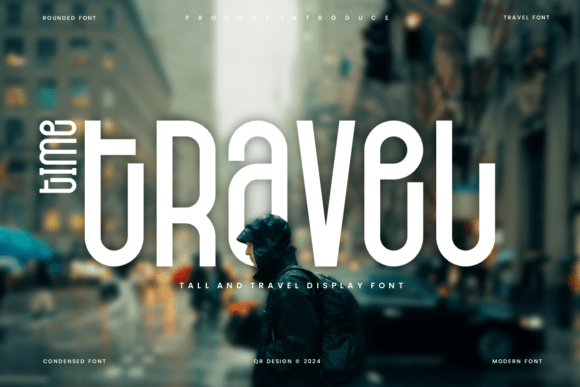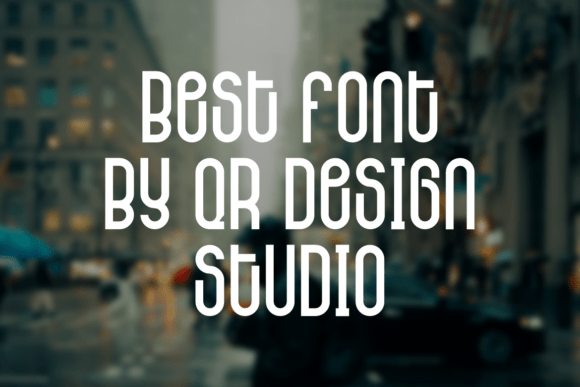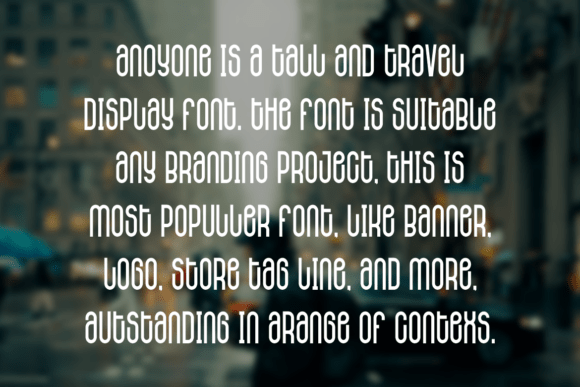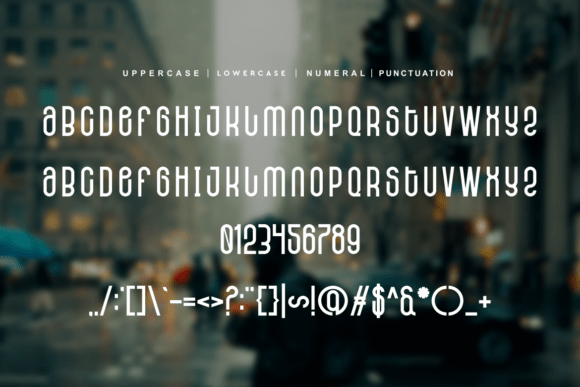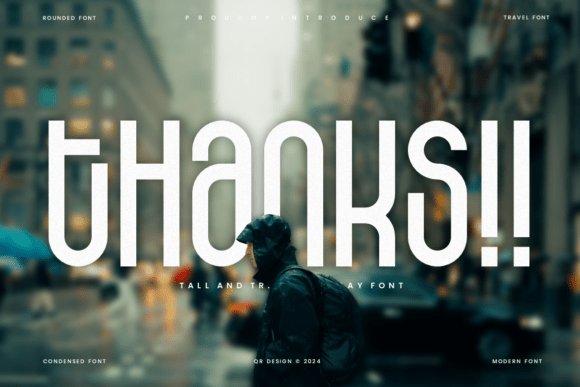
Unlocking Creativity with Anoyone Font
Have you ever been stuck on a design project, scrolling through font options, and suddenly, something clicks? The perfect font appears, and your vision takes shape. For many designers, this moment is a game-changer. It’s the difference between a good design and an exceptional one. And that’s exactly what Anoyone – Tall & Travel Display Font promises to deliver.
This bold and authentic display font is designed to elevate any branding project, from logos to sports-related designs. Its versatility makes it an outstanding choice for a wide range of contexts. Whether you’re working on a new logo, a sports team’s identity, or a marketing campaign, Anoyone Font is an excellent addition to your design toolkit.
As a designer, you understand the importance of a well-chosen font in bringing your vision to life. Anoyone Font offers the perfect blend of style and functionality, making it a valuable asset for any creative project.
Anoyone Font Key Features
- Font Family: Anoyone Font comes in a single family with multiple weights and styles.
- Character Count: The font contains over 1,000 glyphs, including standard Latin characters, punctuation, and special characters.
- Unique Characteristics: Anoyone Font features a unique blend of modern and vintage elements, with a distinctive flair that sets it apart from other fonts.
Review of “Anoyone Font”
Overall, I was quite excited to try out the “Anoyone Font”, but it didn’t quite live up to my expectations. ✨ Here are a few things that worked well:
- Unique and quirky design that’s sure to stand out in certain contexts.
- Well-suited for titles and headings where a bold, attention-grabbing font is needed.
- Comes in a variety of weights and styles to suit different design needs.
However, I did encounter a few limitations that held me back from fully embracing this font: ⚠️
- Some characters, particularly punctuation marks, may appear slightly irregular or inconsistent.
- The font can be quite difficult to read at smaller font sizes, making it less suitable for body text.
- Lack of language support, which may limit its use for multilingual designs.
Overall, I’d say that the “Anoyone Font” is a fun and creative option, but it’s not without its flaws. If you’re looking for a bold, attention-grabbing font for specific design elements, it might be worth considering. However, for more extensive use or complex designs, you may want to look elsewhere.
Tips for Getting the Most Out of Anyone Font
Use Anyone Font for designs that require a friendly and approachable tone, such as social media graphics, marketing materials, or website content. Experiment with different font sizes, colors, and styles to create visual interest and hierarchy in your design.
Anyone Font is ideal for designs that require a conversational tone, such as: